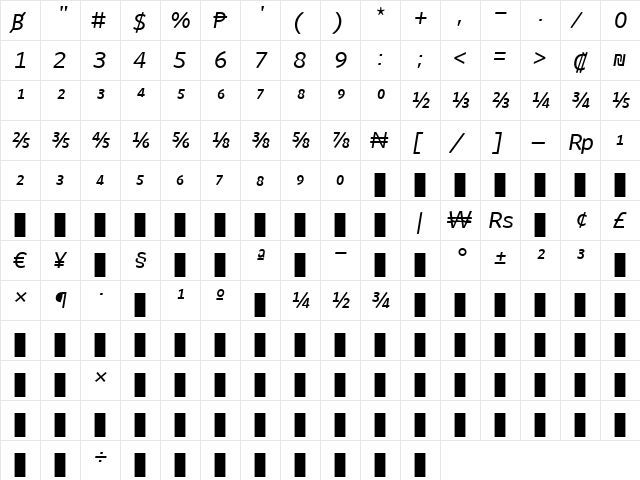
WhitneyNumeric Medium Italic
Design Context for WhitneyNumeric Typeface
WhitneyNumeric is a composed and adaptable typeface that performs quietly and consistently across a wide range of design contexts. The slanted form adds forward momentum and visual energy.
Pro Tip: Try WhitneyNumeric for annotation and caption copy alongside an upright companion — the contrast in angle creates a dynamic but ordered typographic system.